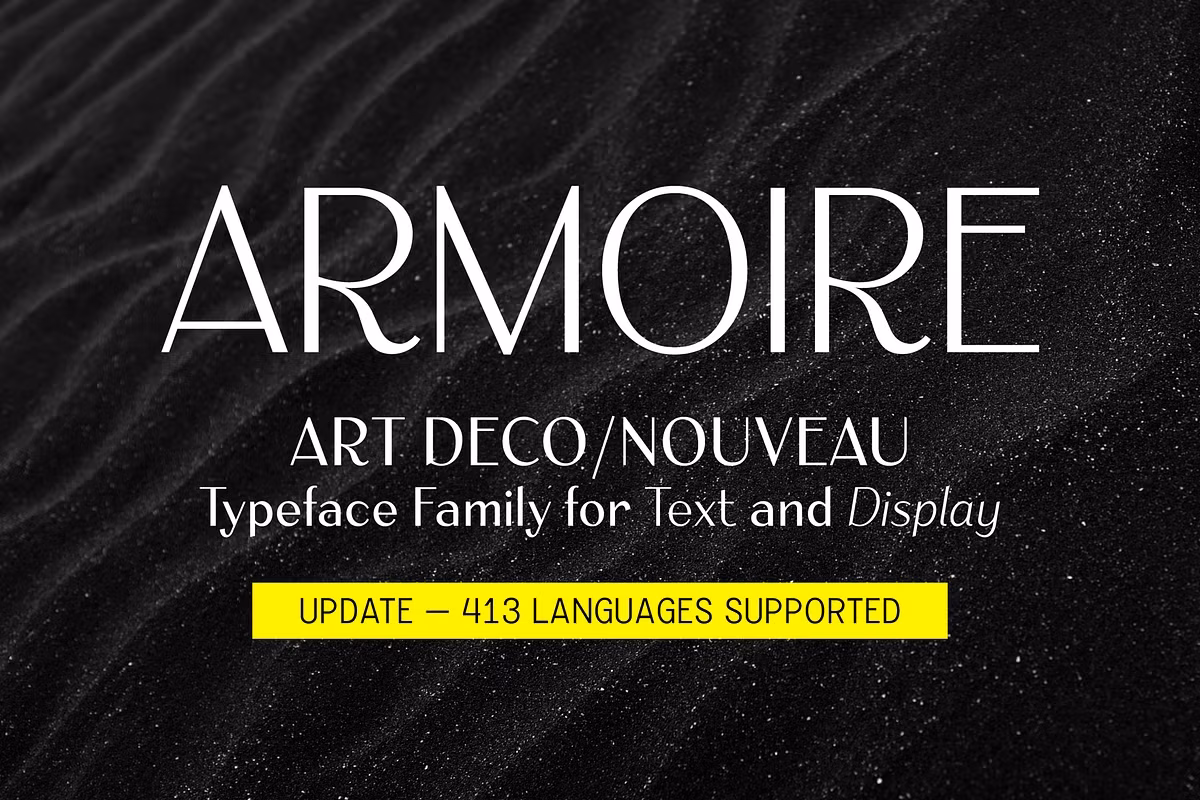
Armoire: Art Deco font family Free Download
Armoire: Art Deco Font Family Free Download
Elegant, stylish, and inspired by the glamour of the 1920s, Armoire: Art Deco Font Family Free Download is a sophisticated typeface that blends the geometric precision of Art Deco design with modern flair. Perfect for luxury branding, editorial design, packaging, event invitations, and high-end logos, this font family offers both bold and refined styles that elevate any project.
With its clean lines, distinctive shapes, and intricate details, Armoire brings a touch of vintage glamour and timeless elegance to your typography. Whether you're working on a vintage-inspired design or a modern reinterpretation, this font family provides the perfect blend of classic sophistication and contemporary edge.